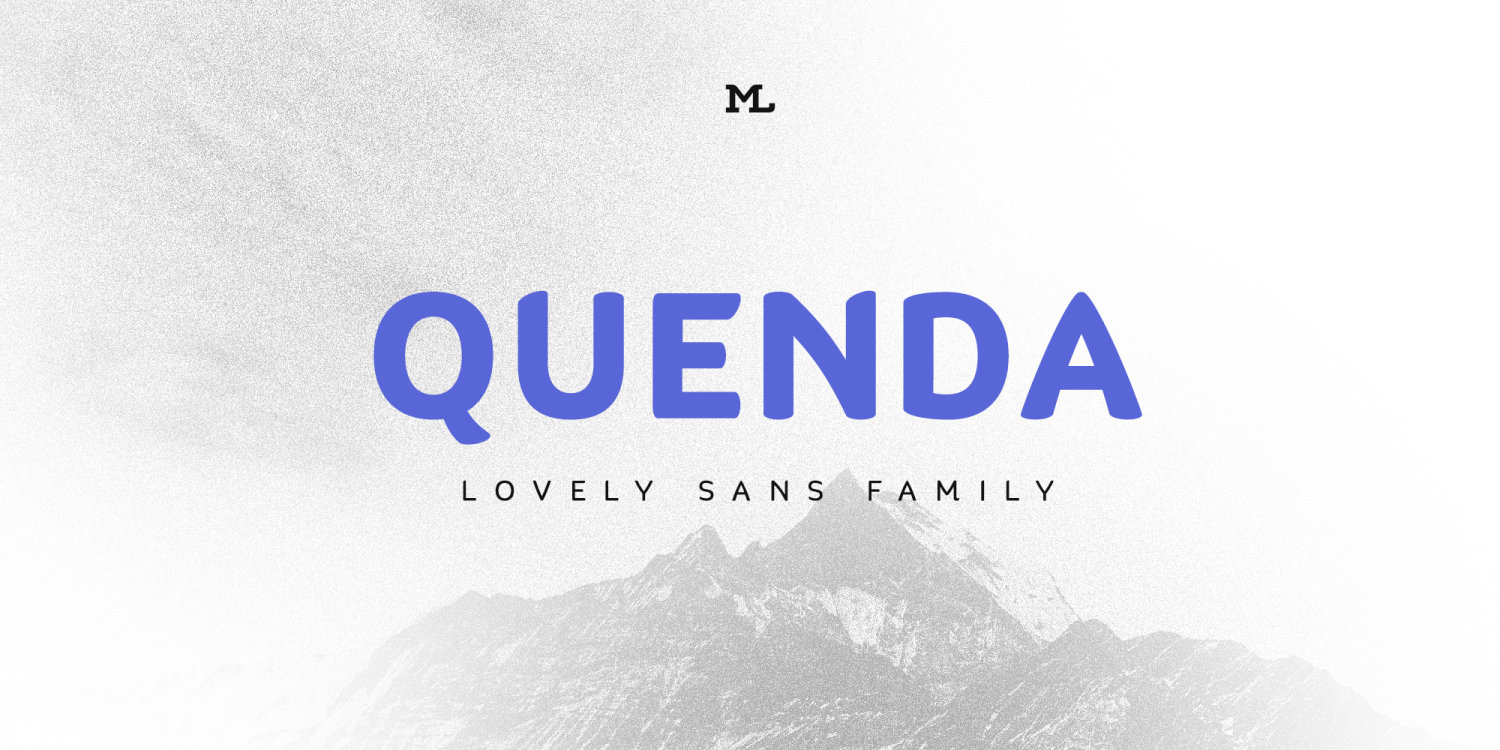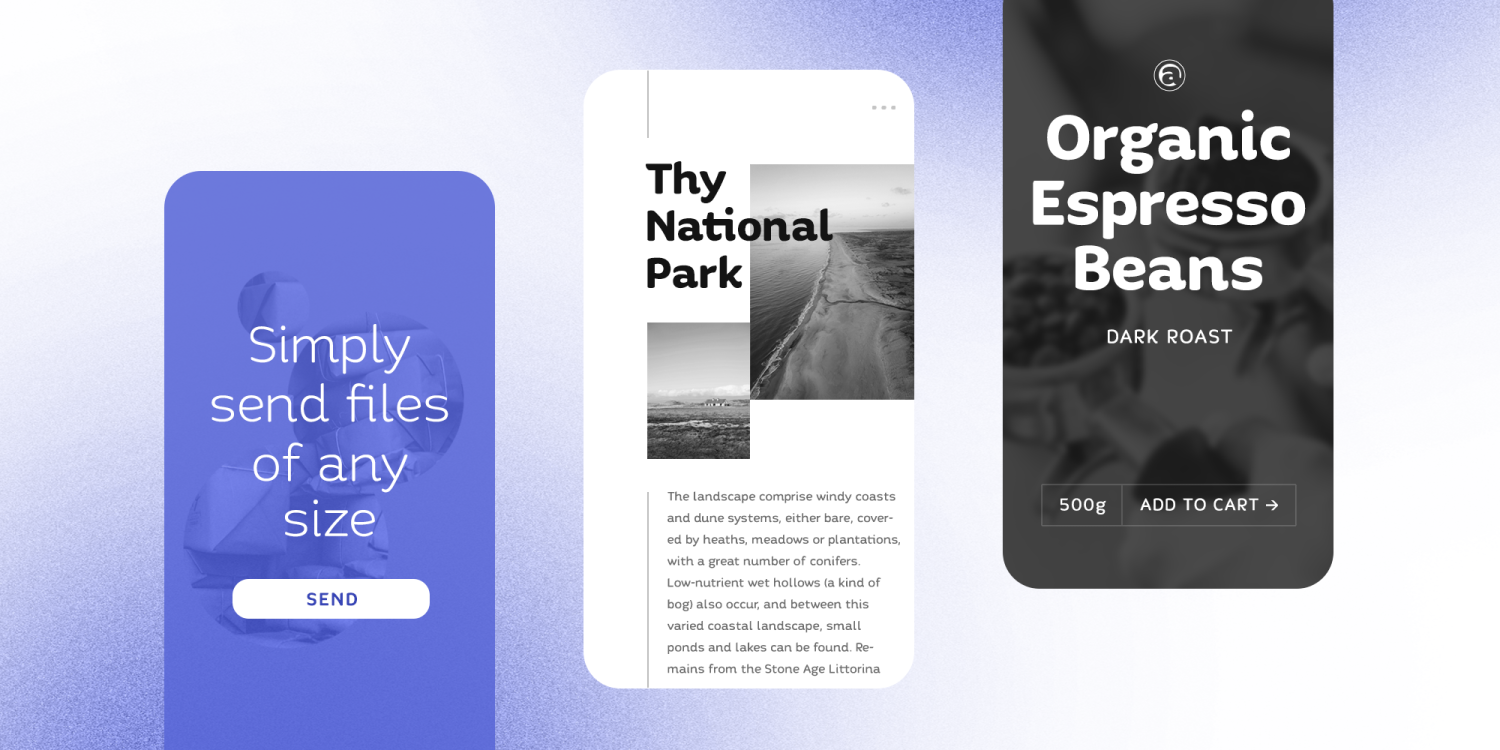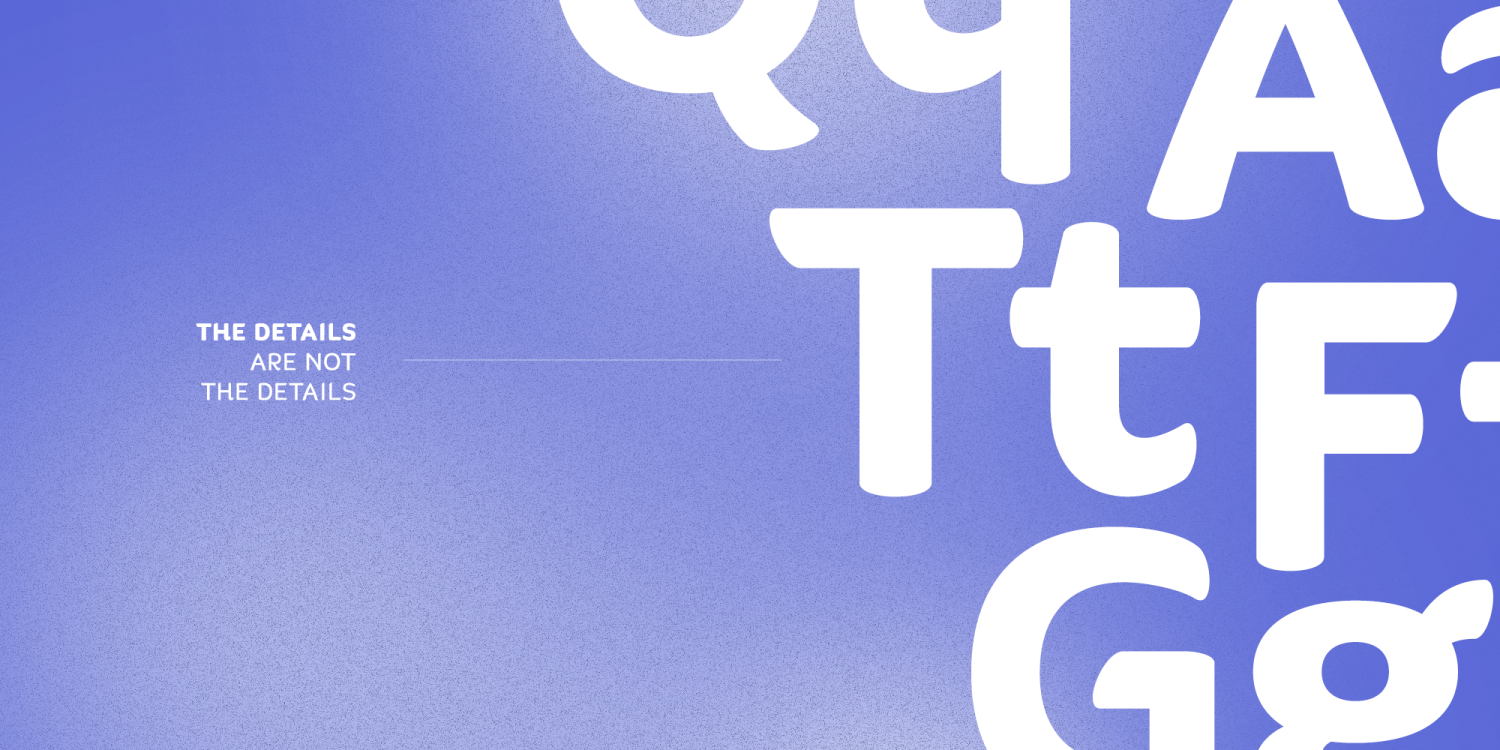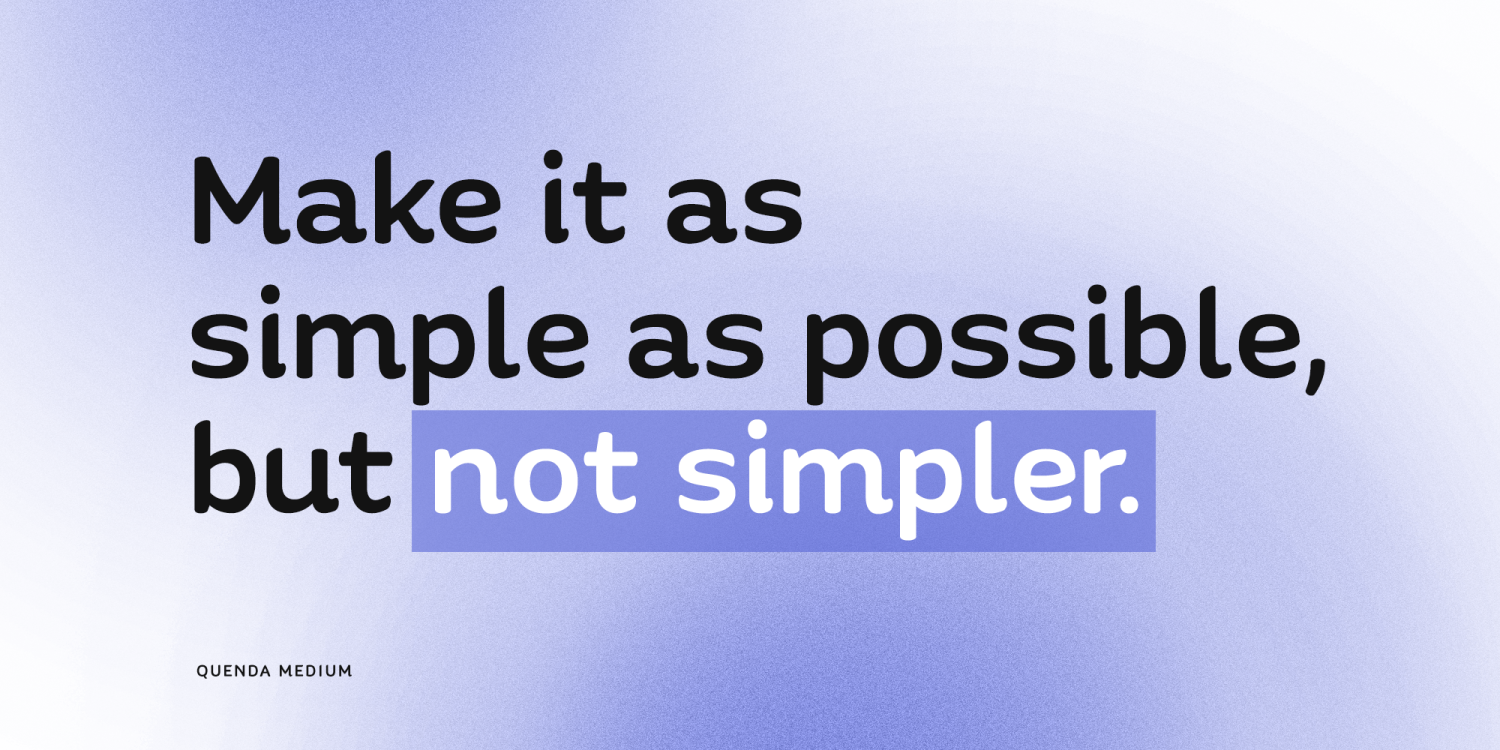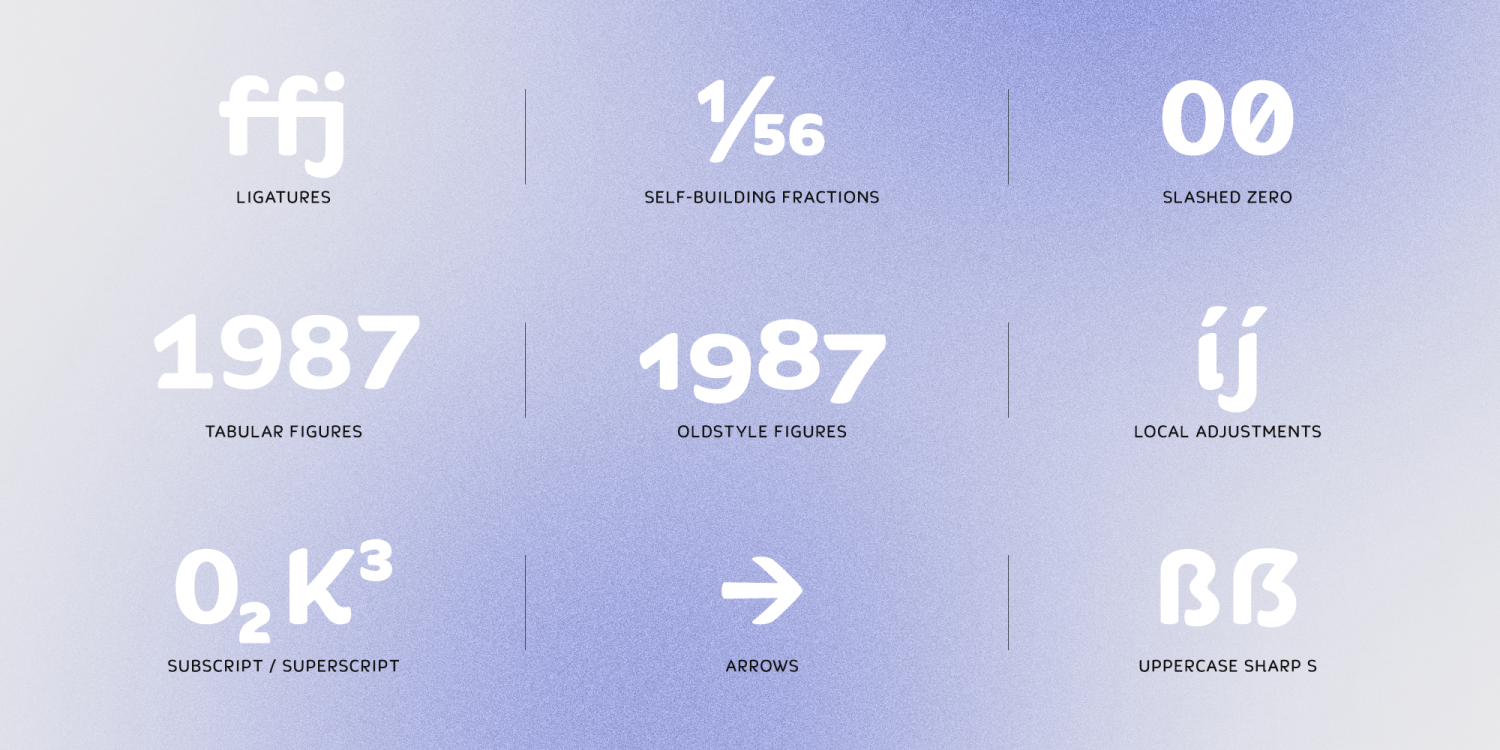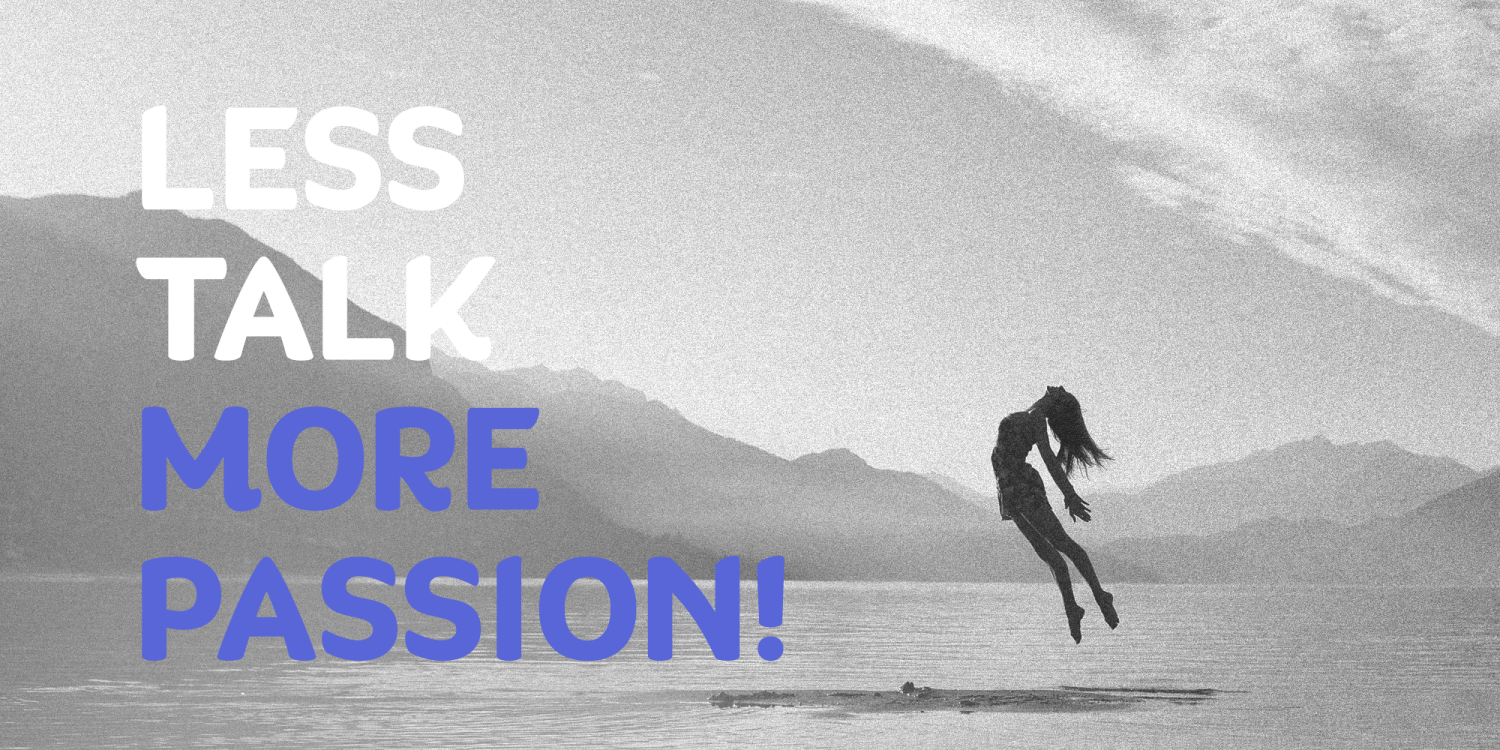
Quenda
Quenda is a small sans-serif family comprising six weights: thin to heavy. Due to its rounded terminals and a slight handwritten look, Quenda has a friendly and warm appearance. Its main purposes are for advertising and branding projects. You will find lots of ligatures and a total of 593 glyphs in each style. With extensive language support, lining-, old-style- and tabular-figures, a slashed zero, self-building fractions, superscript and subscript digits, a set of arrows as well as thousands of kerning pairs, Quenda is ready to contribute to your next design project. Designed by Marc Lohner in 2015.